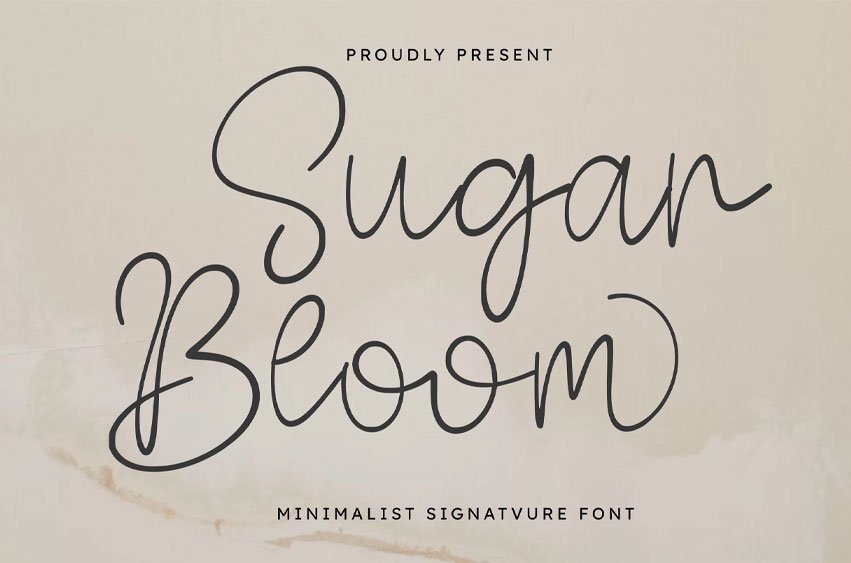
Sugar Bloom Font is a sleek and modern minimalist signature font, crafted with a clean monoline stroke that exudes elegance and effortless style. Its fluid, organic lines capture the essence of a sophisticated personal signature, making it an indispensable tool for designers seeking an authentic and contemporary touch.
This font comes with Multilingual Support, allowing you to create beautiful designs for an international audience. Whether you are working on high-end brand identities, delicate wedding invitations, or chic social media content, Sugar Bloom provides a polished and professional aesthetic that feels both intimate and timeless.
- Clean and Minimalist Signature Style
- Smooth Monoline Strokes
- Multilingual Support
- Natural and Effortless Flow
Best Used For: Minimalist logo branding, wedding stationery, photography watermarks, boutique signage, personal branding, elegant social media quotes, and luxury product packaging.